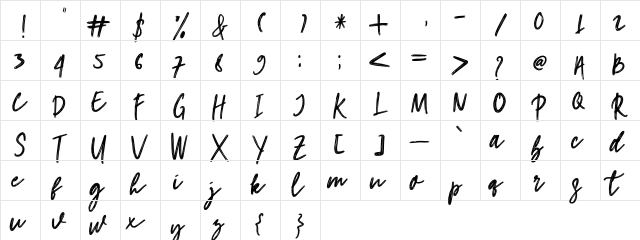
hangouts Regular
Design Context for hangouts Typeface
hangouts is a composed and adaptable typeface that performs quietly and consistently across a wide range of design contexts.